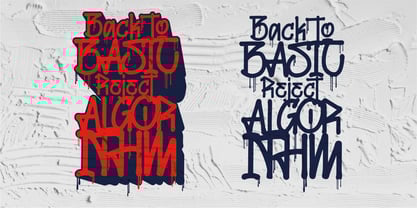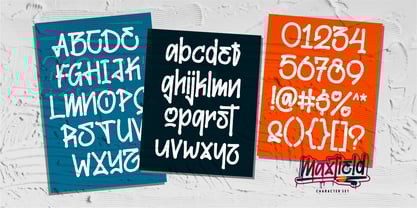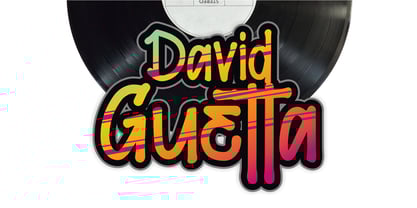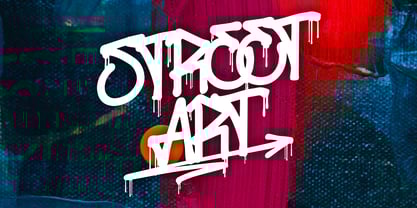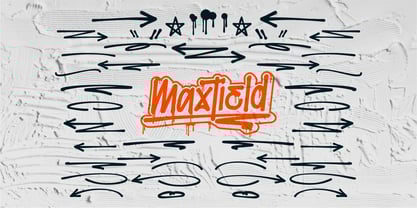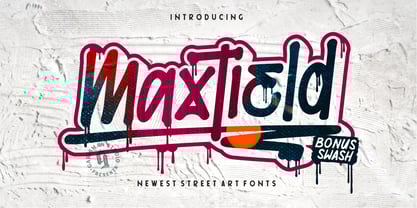
Maxtield Font
Maxtield Font is perfect for strong corporate branding, masculine product packaging, industrial company logos, construction firm materials, automotive branding, outdoor equipment graphics, sports team identities, rugged lifestyle marketing, powerful headline design, and commanding business communications.
What makes Maxtield Font so exciting is its robust masculinity that combines industrial strength with contemporary sophistication, creating typography that communicates power, reliability, and unwavering confidence. This commanding typeface embodies masculine authority and professional strength, delivering visual communication that resonates with audiences seeking dependable quality and strong leadership.
The Maxtield Font family includes light, regular, medium, bold, and black weights, complete with condensed variations and masculine design features that provide designers with comprehensive tools for creating powerful and memorable typography that embodies strength and professional authority.
The robustly constructed letterforms of Maxtield Font showcase masculine elegance with industrial character that creates instant recognition of strength and professional reliability. Each character displays careful attention to maintaining the powerful presence that defines masculine authority while ensuring contemporary readability and professional versatility. The font's strong construction and confident spacing contribute to its commanding appearance and masculine appeal.
Industrial brands and masculine-focused companies consistently choose Maxtield Font for projects requiring powerful presence and authoritative communication. The comprehensive character set includes uppercase and lowercase letters, numerals, extensive punctuation, international accents, and masculine design elements that provide complete support for industrial branding applications and powerful design compositions.
The commanding versatility of Maxtield Font ensures exceptional performance across both traditional print and modern digital platforms. Whether developing industrial brand identities, creating masculine marketing campaigns, or designing powerful corporate materials, this remarkable typeface delivers consistent strength that resonates with audiences seeking reliability, power, and masculine sophistication.